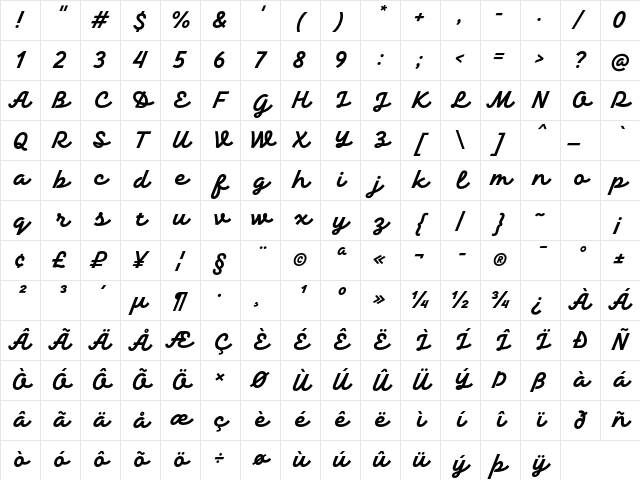
TT Backwards Script Trl Bold Free Font
TT Backwards Script Trl Bold
Designer: TypeType
Design Context for TT Backwards Script Trl
TT Backwards Script Trl flows with the natural rhythm of handwritten lettering, making it ideal for designs that call for warmth and personal expression. Its bold stroke weight gives it real presence on the page.
Font Pairing: Combine TT Backwards Script Trl with a simple geometric sans for maximum contrast - the tension between flowing curves and clean structure is a classic typographic pairing.
Pro Tip: Use TT Backwards Script Trl for short runs of text - names, titles, or taglines. Extended body copy in script faces tires the eye quickly.